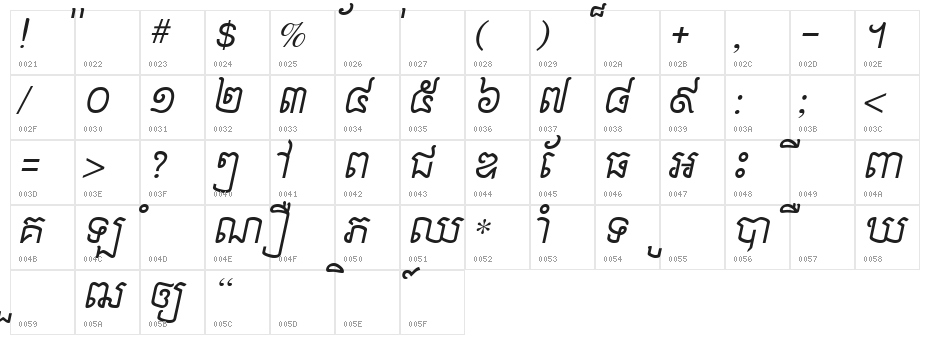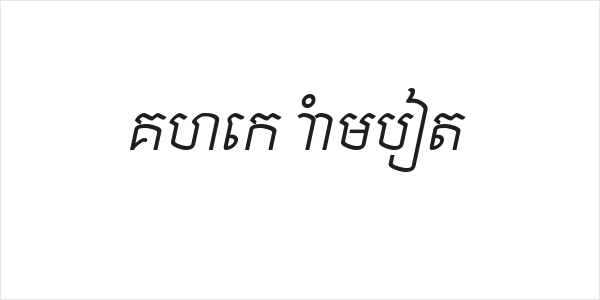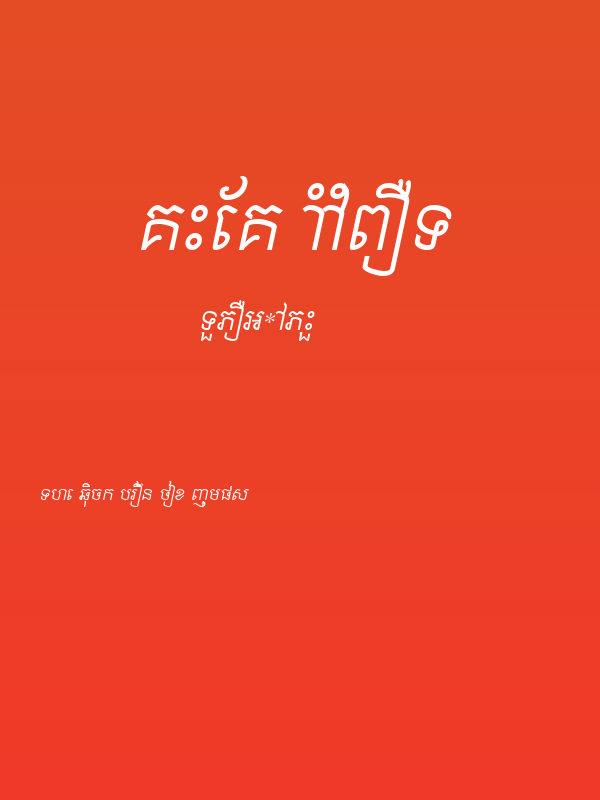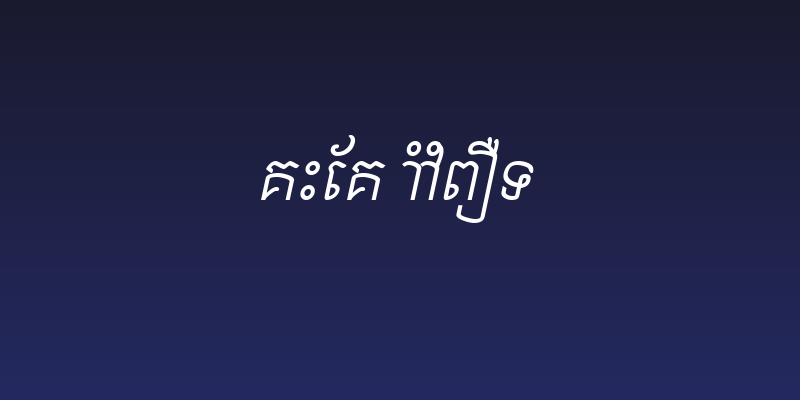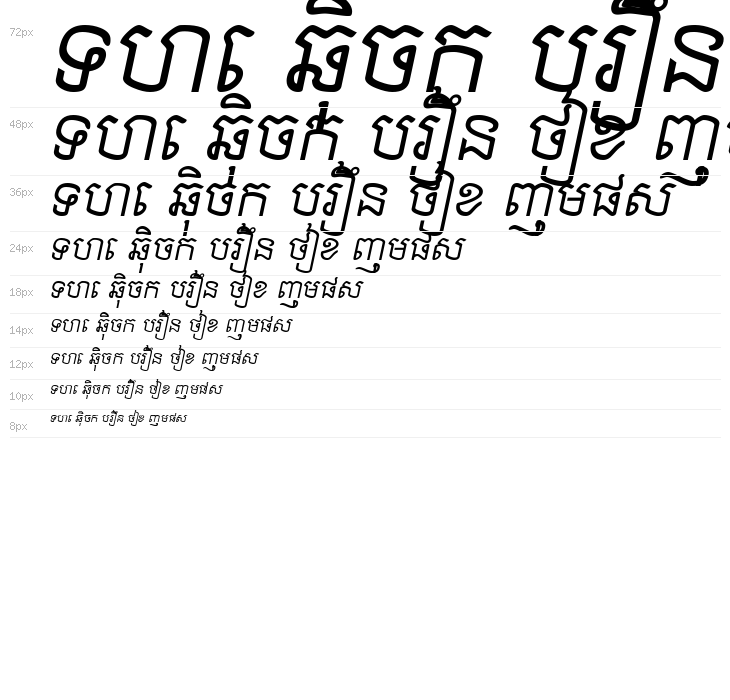
Khek Sambot Font
Khek Sambot Description
This font features a distinctive and artistic style, characterized by its flowing and dynamic script. The characters exhibit a unique blend of curves and angles, creating an elegant yet playful appearance. The strokes are moderately thick, providing a balanced contrast that enhances readability while maintaining an artistic flair. The font's design incorporates a sense of movement and fluidity, making it suitable for creative and expressive projects. Its overall aesthetic is both modern and decorative, with a touch of traditional script influences.
| Use Case | Logos, Artistic posters, Invitations |
| Proposed Projects | Ideal for creative projects such as invitations, greeting cards, artistic posters, and branding materials that require a touch of elegance and expressiveness. |